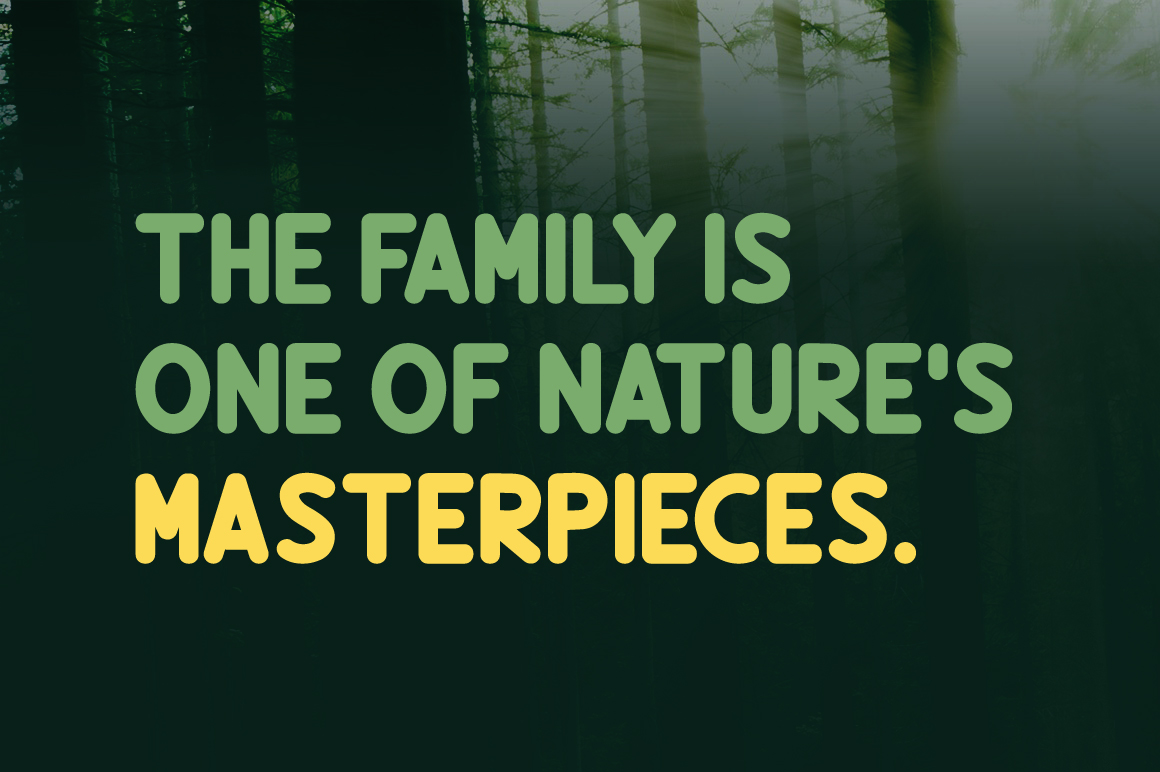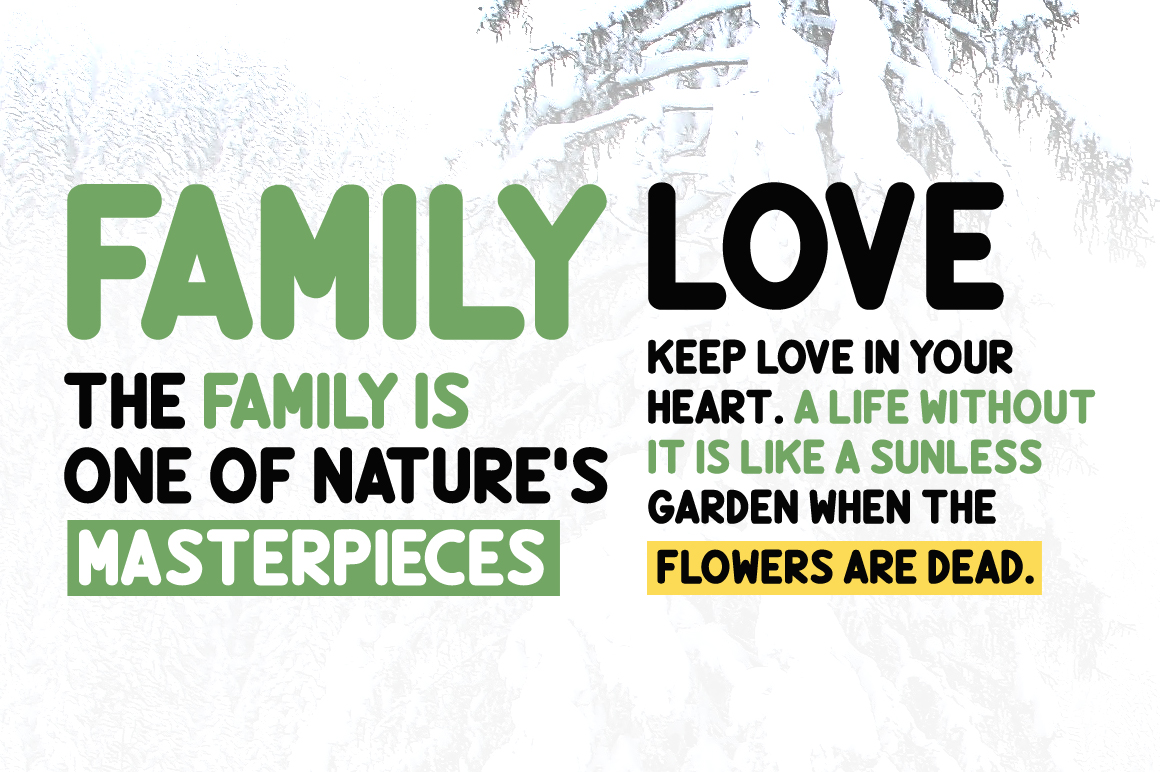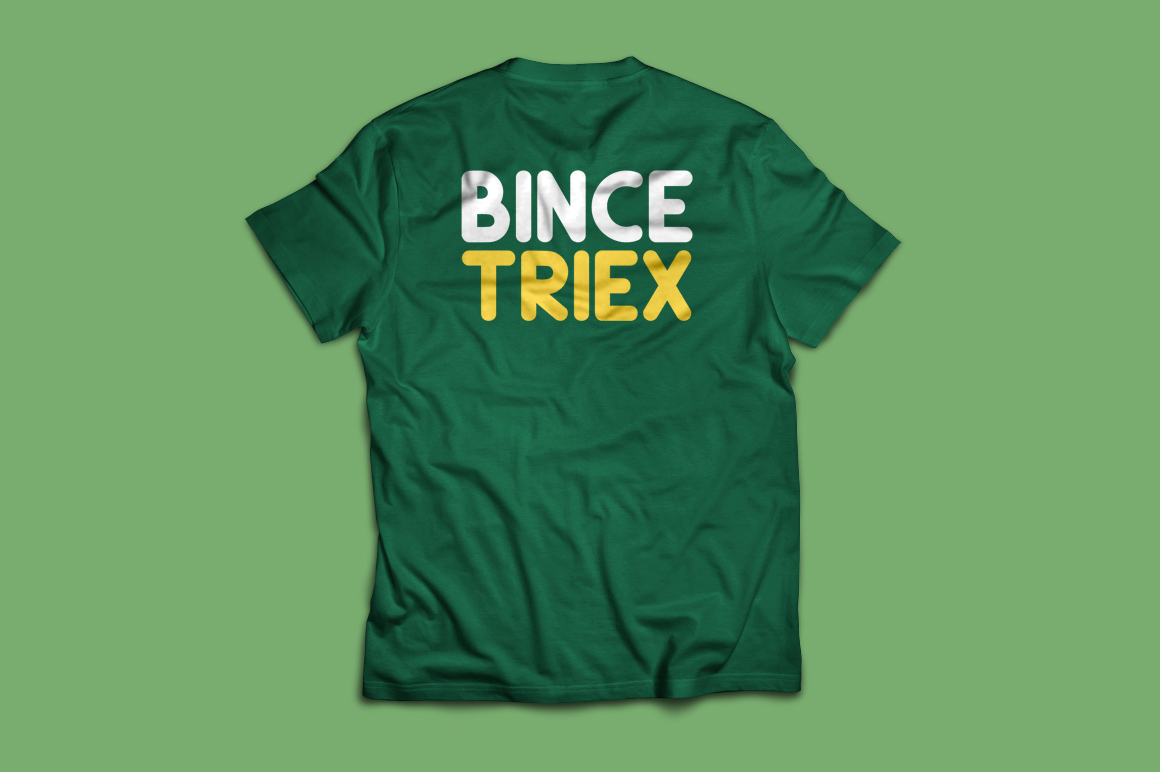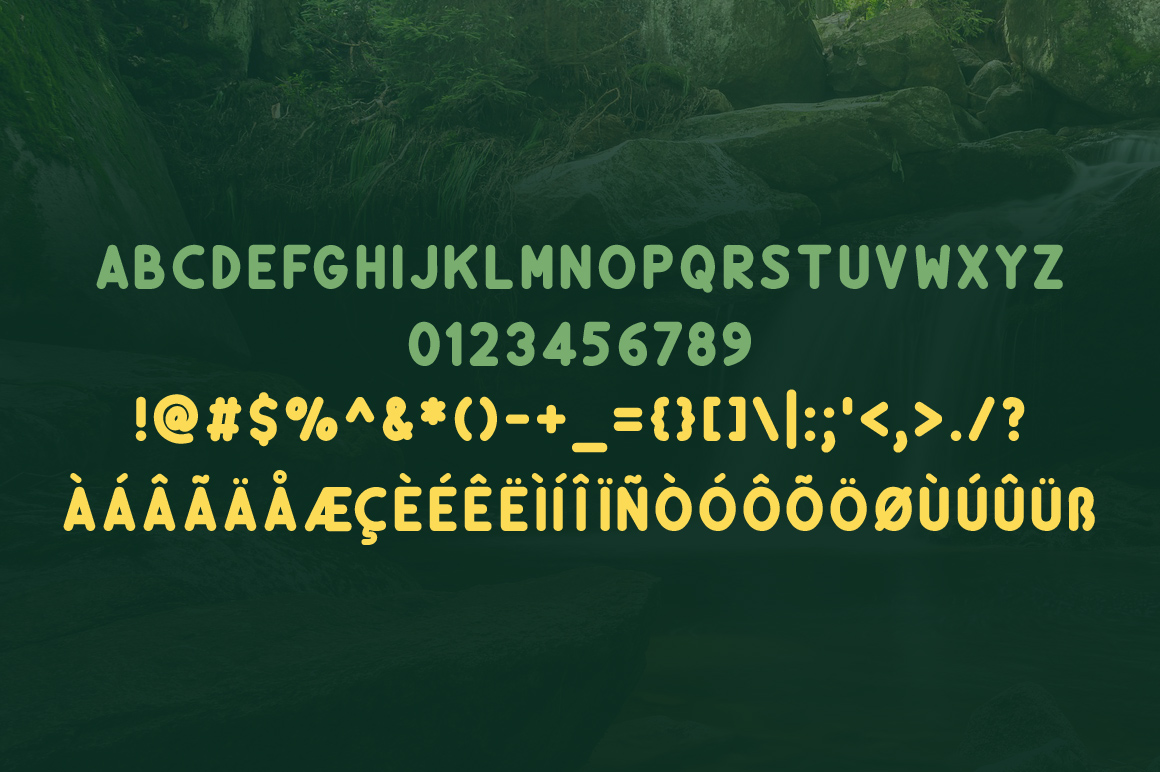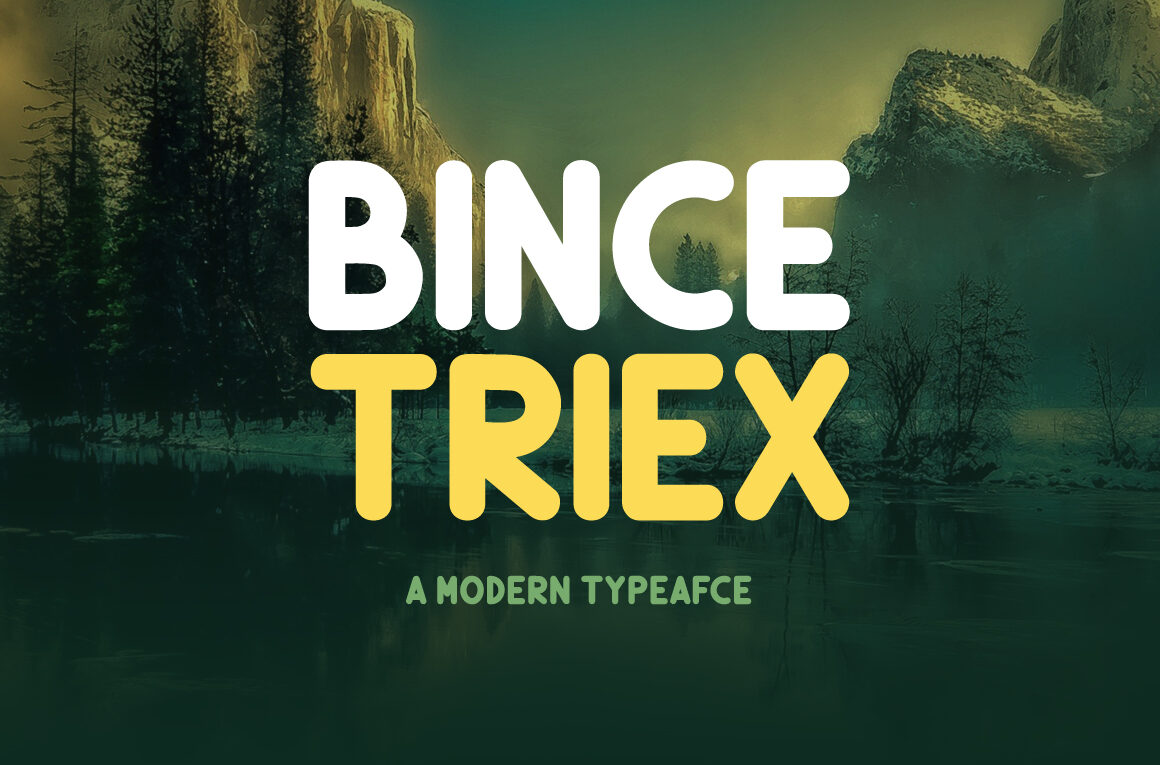
Bince Triex Font: A Beautiful Rounded Sans Serif Display Font
In the world of typography, a good font can make all the difference in the success of a design project. Whether you’re a seasoned designer or a crafty DIY enthusiast, having the right font at your disposal can elevate your work from ordinary to extraordinary. That’s where Bince Triex comes in – a stunning, rounded sans serif display font that’s sure to capture your attention and inspire your creativity.
What is Bince Triex?
Bince Triex is a beautiful, rounded sans serif display font that’s designed to make a statement. Its unique blend of curves and lines creates a visually appealing aesthetic that’s both modern and timeless. With its clean and simple design, Bince Triex is easily readable, making it perfect for a wide range of applications, from digital displays to print materials.
Key Features of Bince Triex
- Rounded Sans Serif Design: Bince Triex boasts a distinctive rounded sans serif design that’s both elegant and approachable.
- Easily Readable: Despite its decorative nature, Bince Triex is surprisingly easy to read, making it suitable for use in a variety of contexts.
- Stands Out Against Different Designs: Whether you’re working on a bold and bright design or a more subdued and minimalist project, Bince Triex is sure to stand out and make a lasting impression.
Applications for Bince Triex
So, what can you use Bince Triex for? The possibilities are endless! Here are just a few ideas to get you started:
- Digital Displays: Use Bince Triex to create eye-catching social media graphics, website headers, and digital advertisements.
- Print Materials: Add a touch of elegance to your business cards, brochures, and flyers with Bince Triex.
- Branding and Packaging: Create a cohesive brand identity with Bince Triex, perfect for product labels, packaging, and more.
- Crafting and DIY Projects: Add a personal touch to your handmade crafts, such as scrapbooking, card making, and journaling.
Why You Need Bince Triex in Your Collection
With so many fonts available, what sets Bince Triex apart? Here are just a few reasons why you should consider adding Bince Triex to your font collection:
- Unique Design: Bince Triex offers a fresh and distinctive design that’s sure to set you apart from the crowd.
- Versatility: Whether you’re working on a digital or print project, Bince Triex is versatile enough to adapt to any design style.
- Ease of Use: With its clean and simple design, Bince Triex is easy to use and pairs well with a wide range of other fonts.
In conclusion, Bince Triex is a stunning display font that’s sure to elevate your design projects to the next level. With its beautiful rounded sans serif design, ease of readability, and versatility, Bince Triex is the perfect addition to any designer’s or crafter’s font collection. So why wait? Add Bince Triex to your collection today and discover the endless possibilities it has to offer!